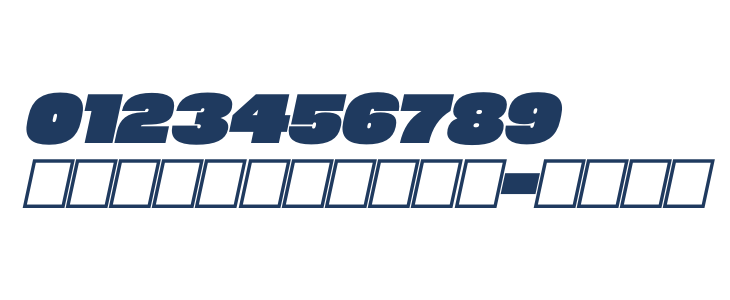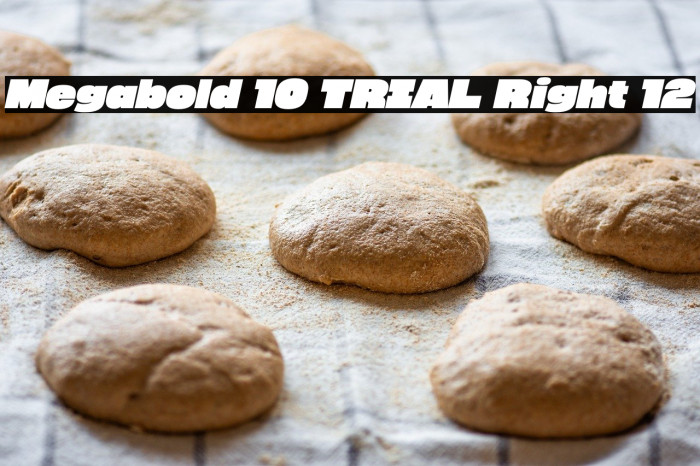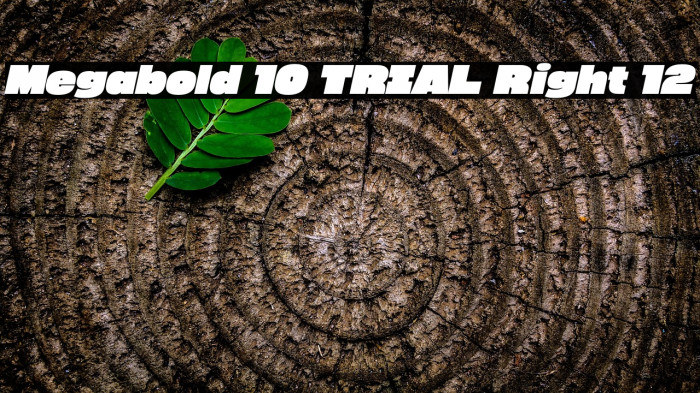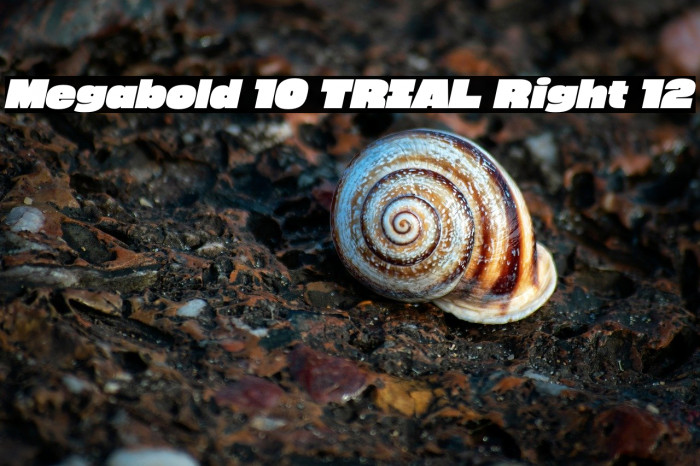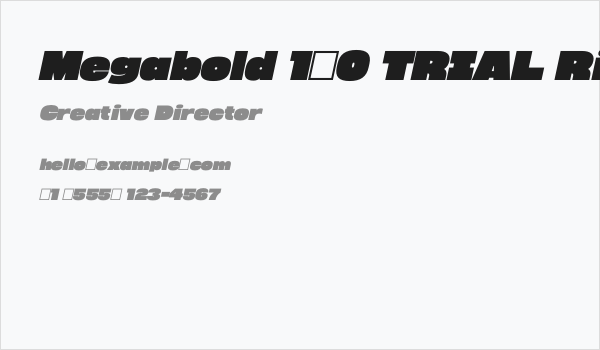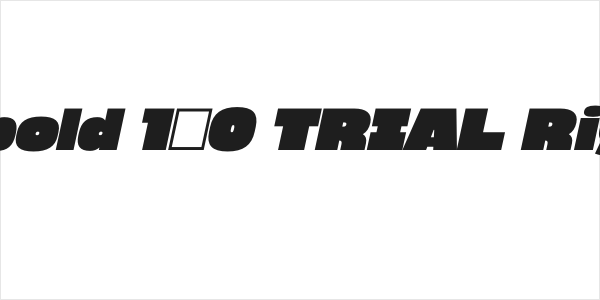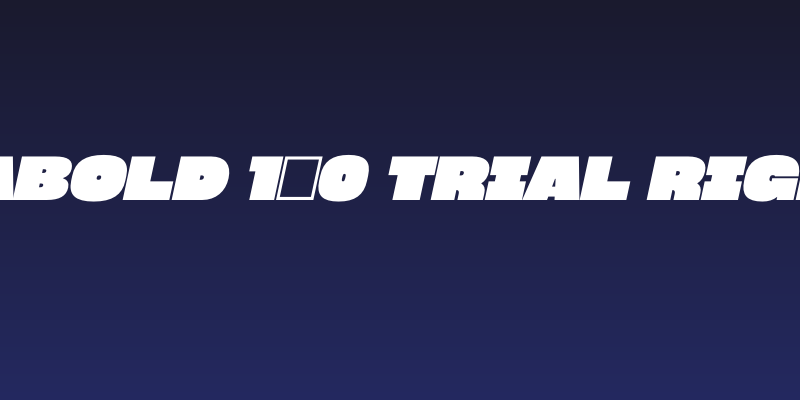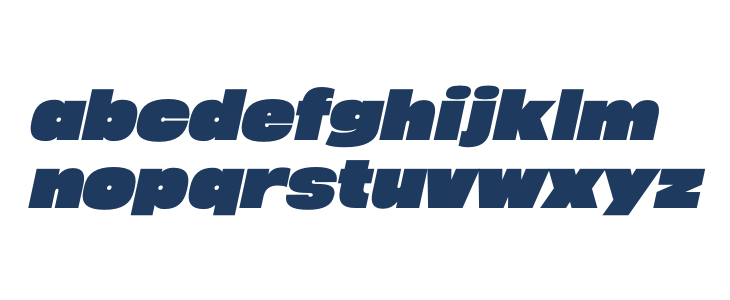
Megabold 1.0 TRIAL Right 12 Font
Megabold 1.0 TRIAL Right 12 Description
This font features a bold and impactful design with a strong presence. The characters are heavily weighted, giving them a robust and commanding appearance. The style is modern and dynamic, with a slight slant that adds a sense of motion and energy. The uppercase and lowercase letters maintain a consistent thickness, ensuring readability while emphasizing the boldness. Numbers and special characters follow the same design principles, making them suitable for attention-grabbing headlines and displays. The overall aesthetic is clean yet powerful, ideal for projects that require a strong visual impact.
| Proposed Projects | Ideal for branding, advertising, posters, and any project needing a bold statement. |